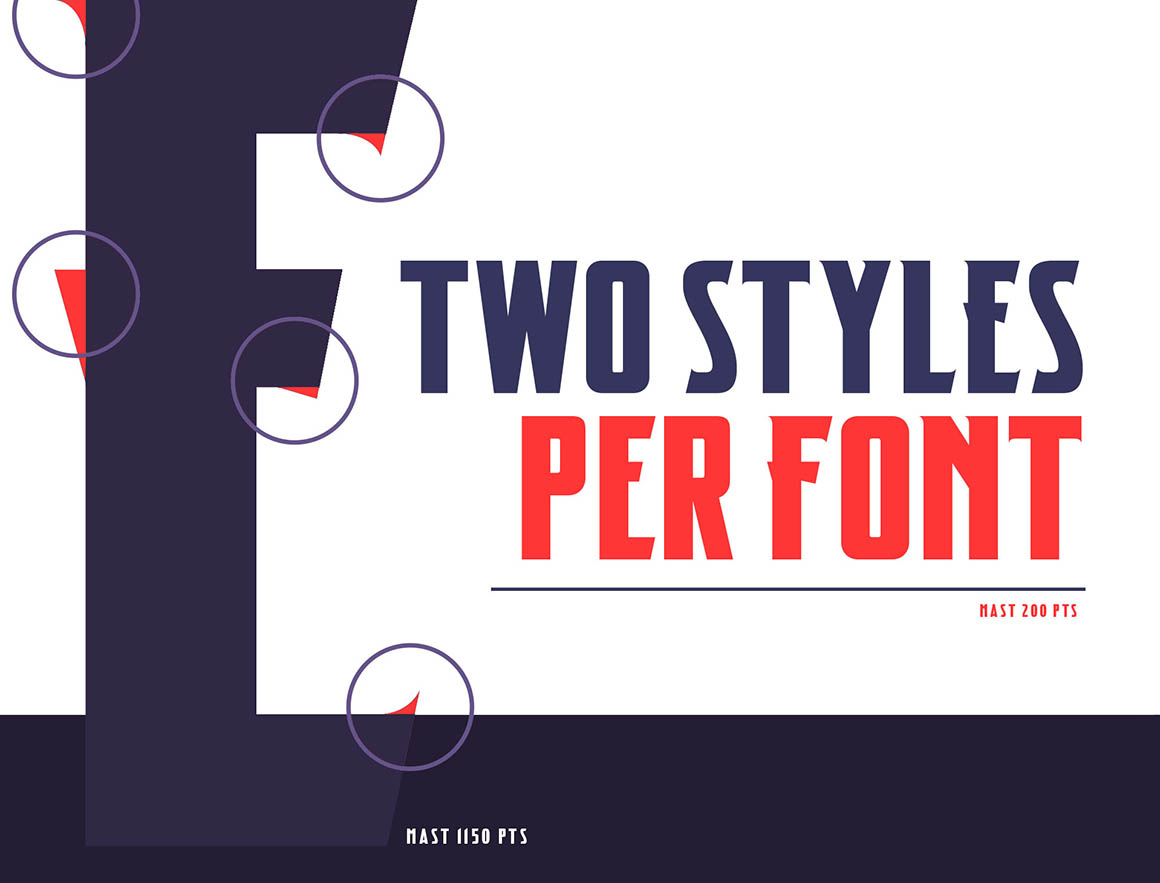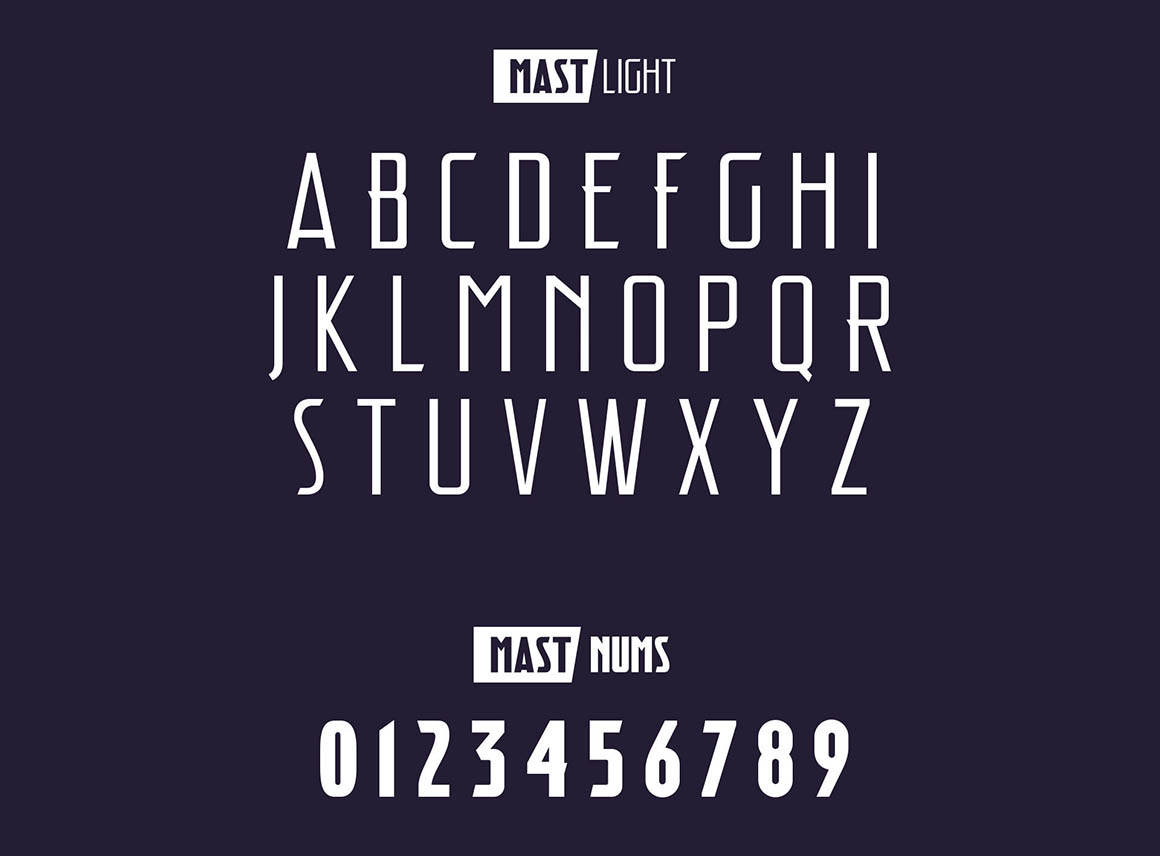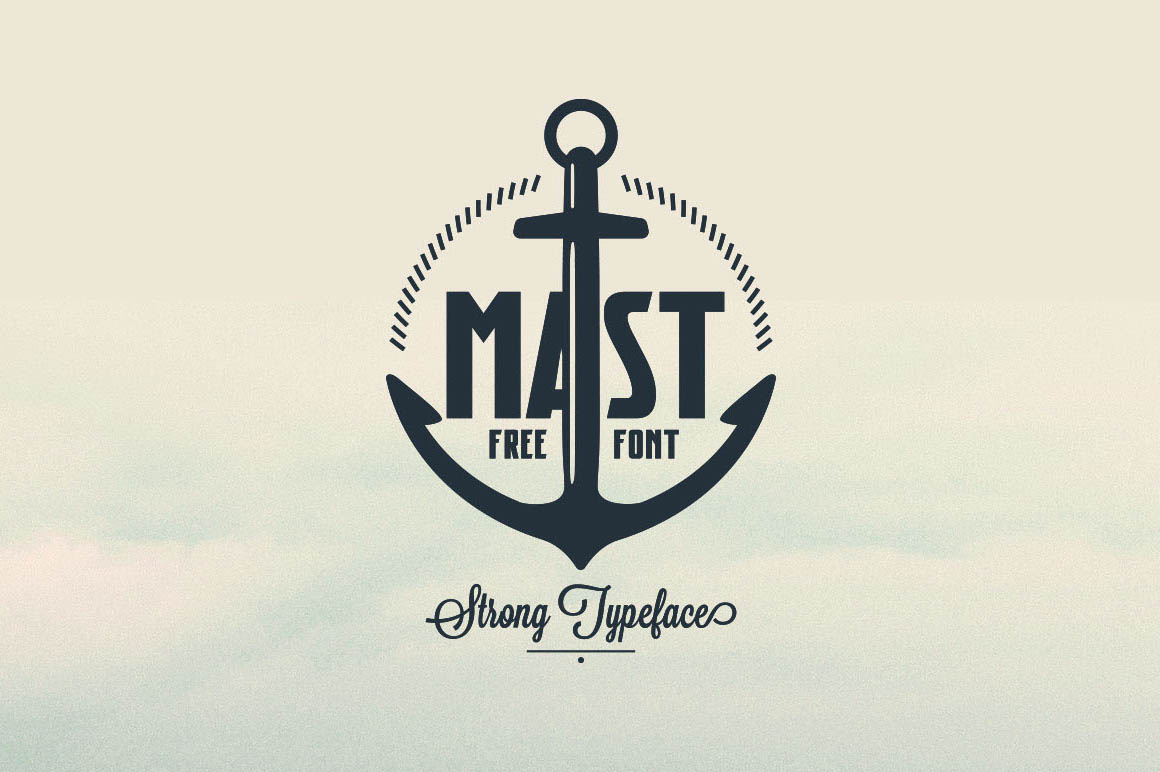
MAST – Free Font
Introducing Mast Typeface! Mast designed by NACH OH!. Mast Typeface is a modern sans serif with a geometric typical characters, Inspired by Modern Style & Industrial Era Typographic and Graphic design, Mast is was manually hinted and optimized in small sizes for screens. It is good for making creative templates and stationary. Mast typeface suits best for modern / clean designs, logos, headlines, banners and templates etc.